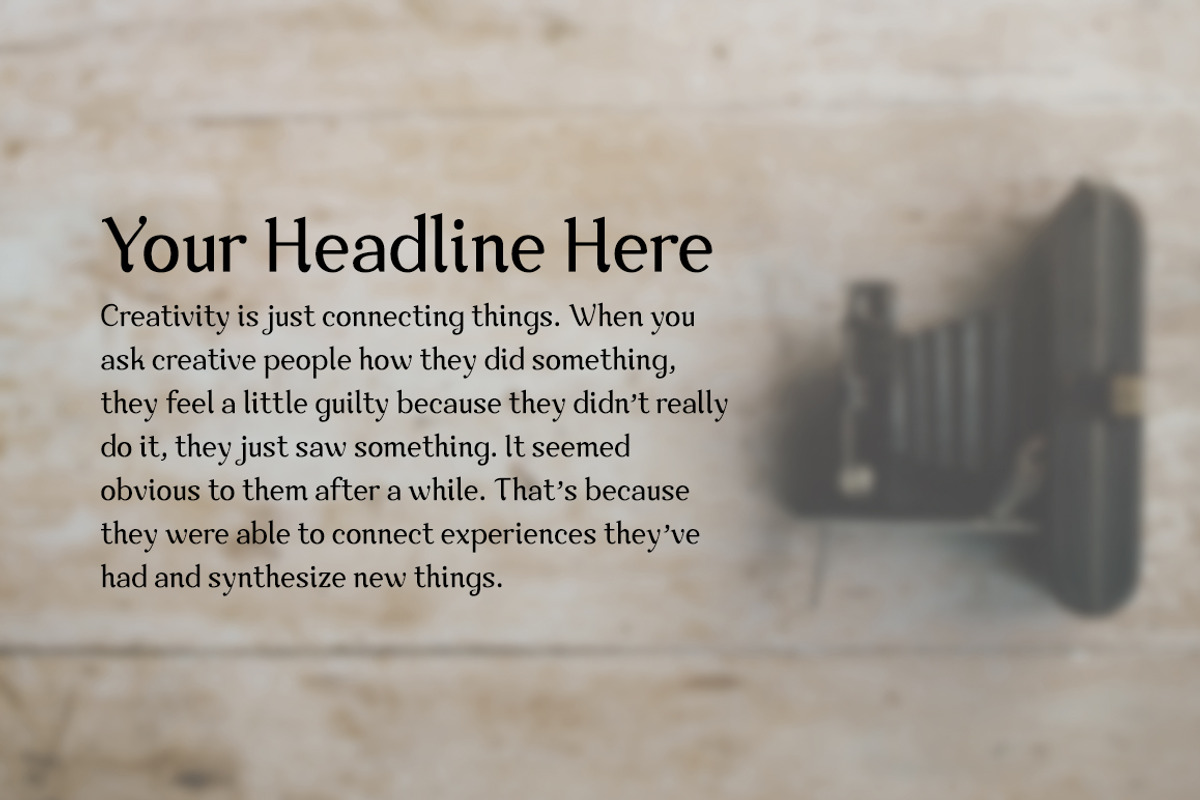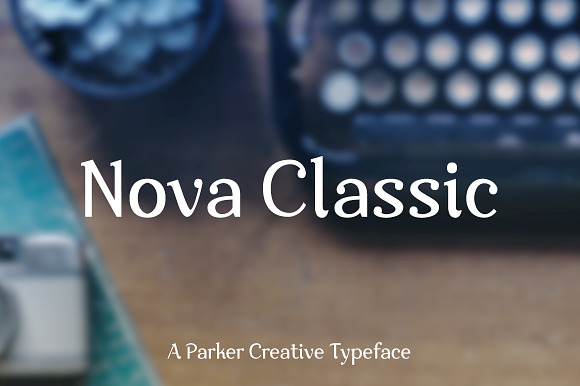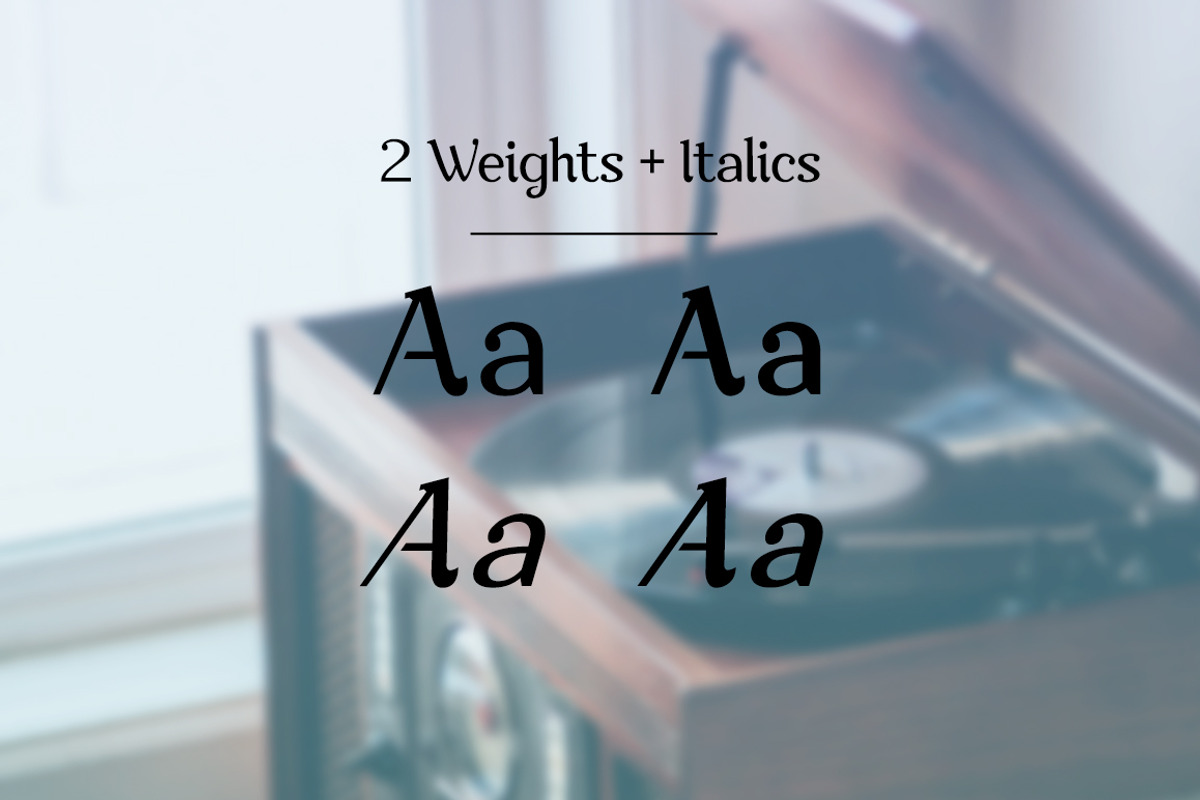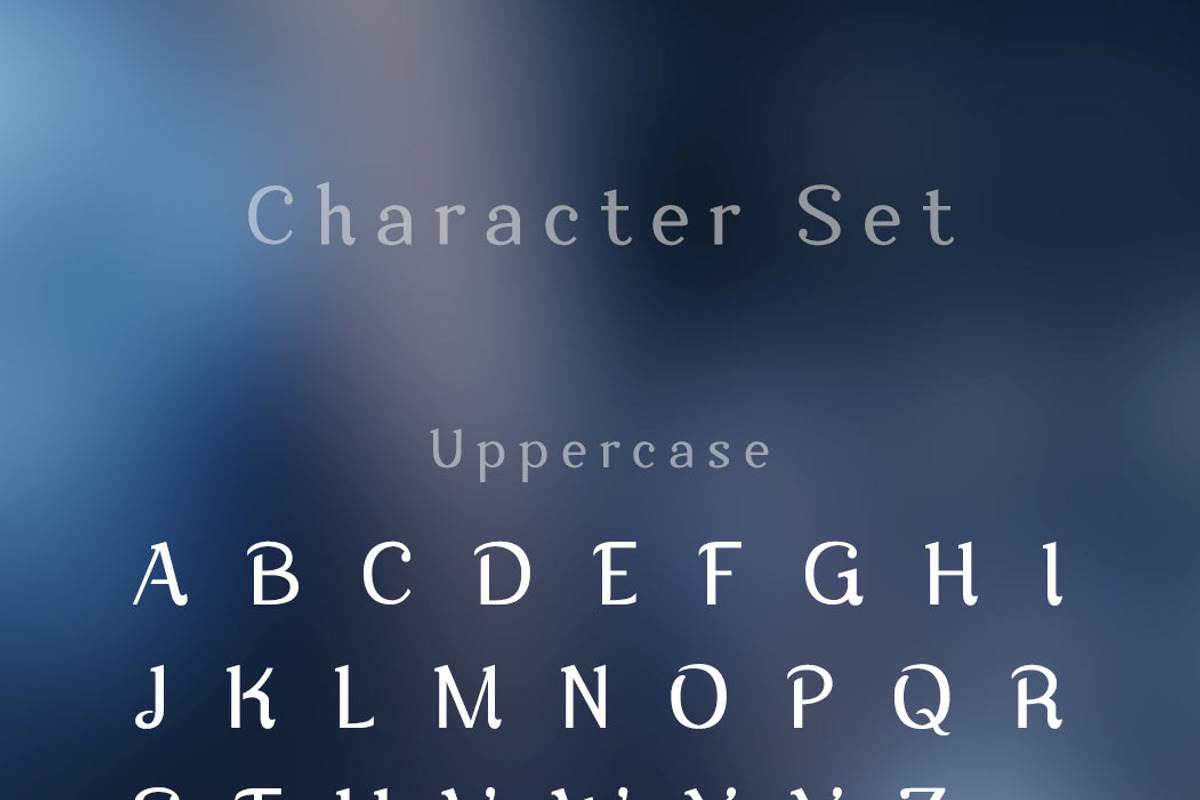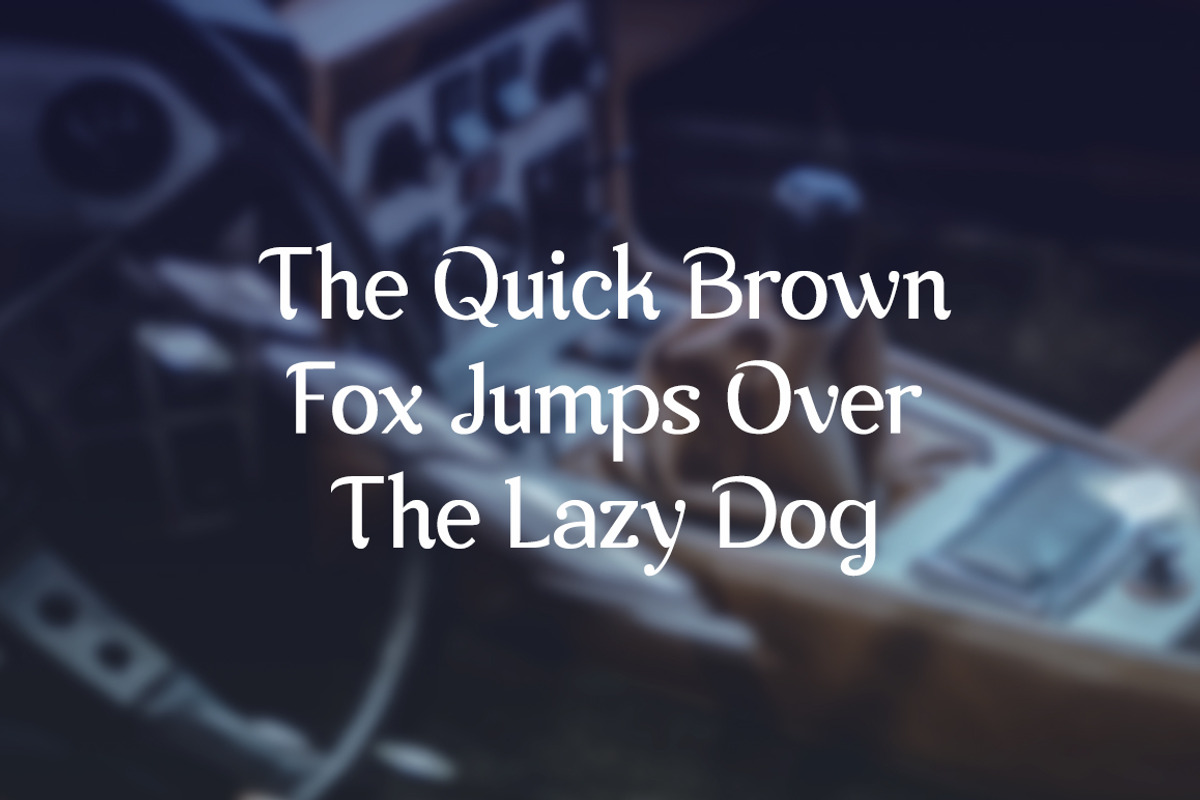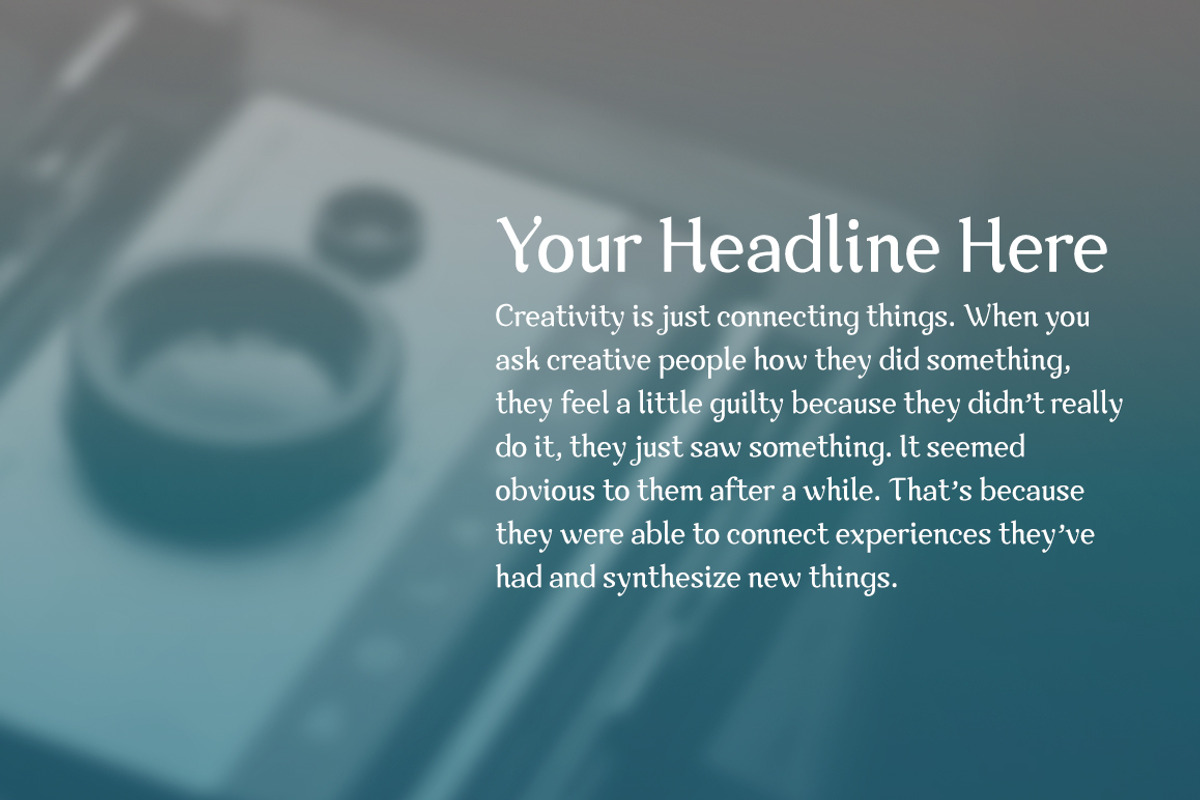
Nova Classic | Fun & Casual Script Font
Introducing Nova Classic, a fun and casual script font! Featuring unique and decorative characteristics, Nova Classic has a welcoming look that can be used to create logos, graphics, and so much more with an elegant flair.
Nova Classic is available in two weights with italics for a variety of options for your creative work.